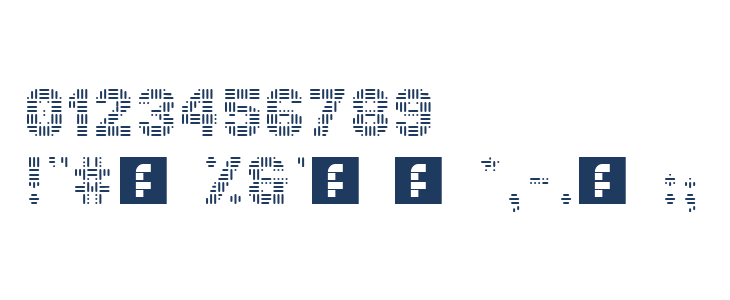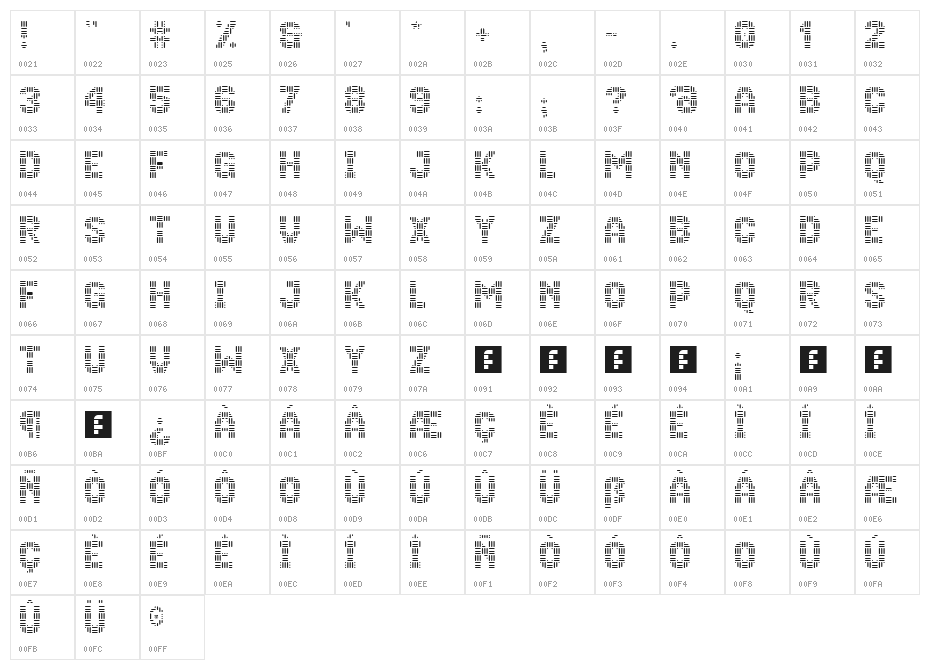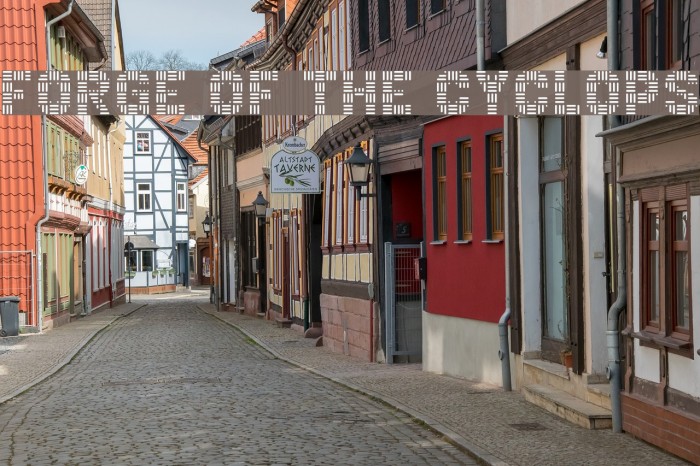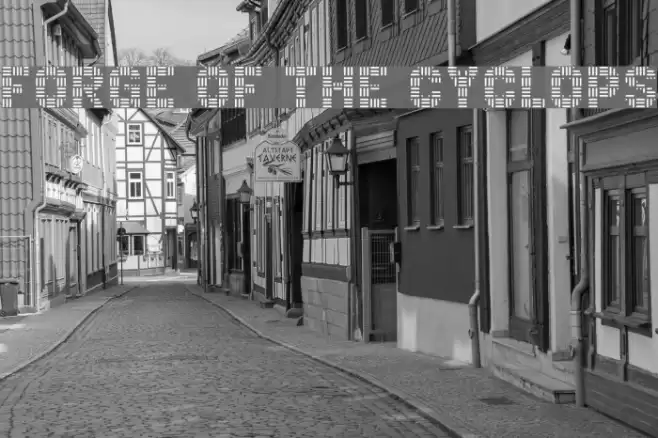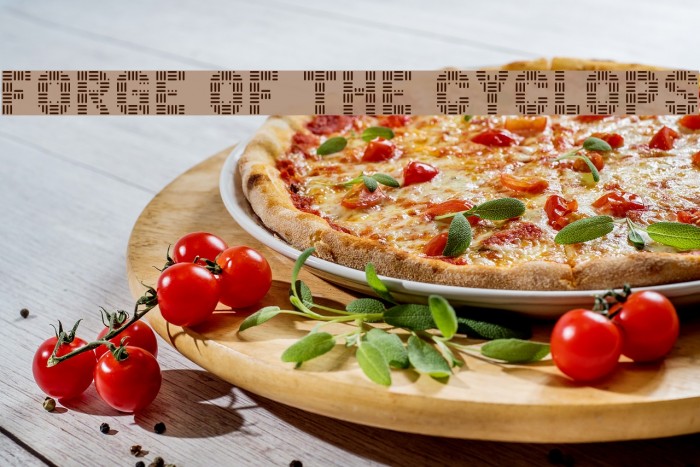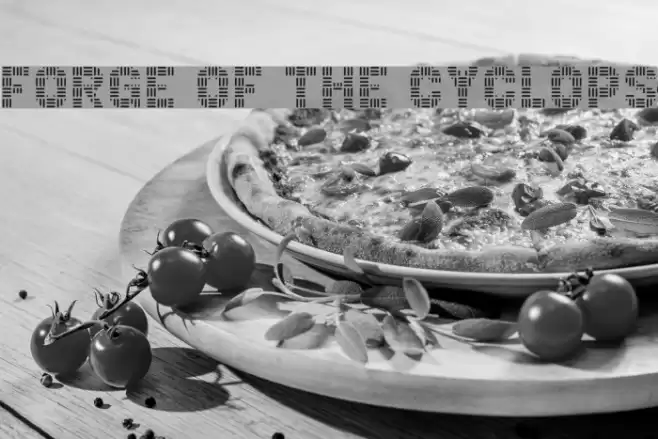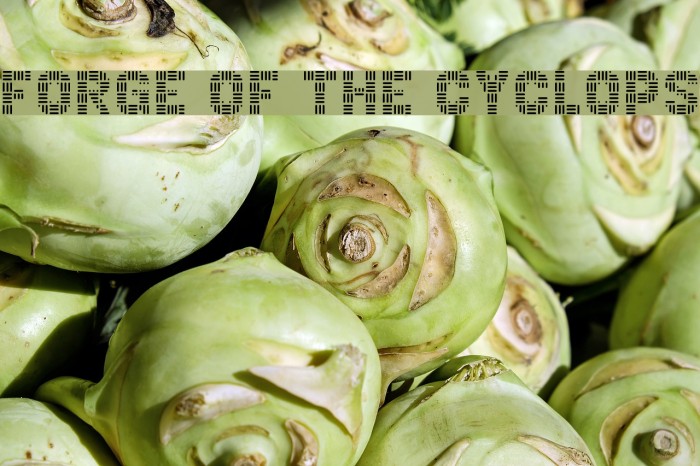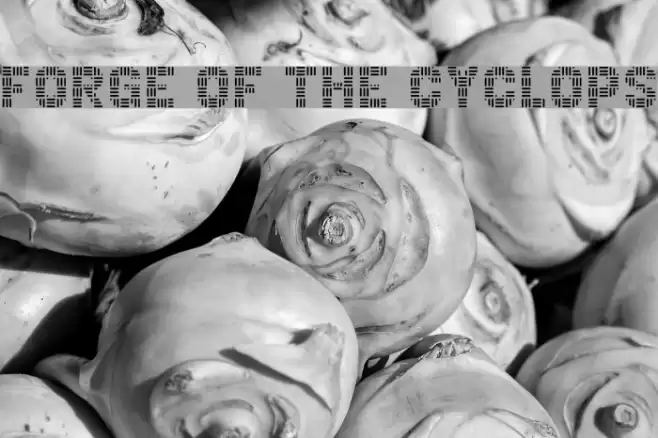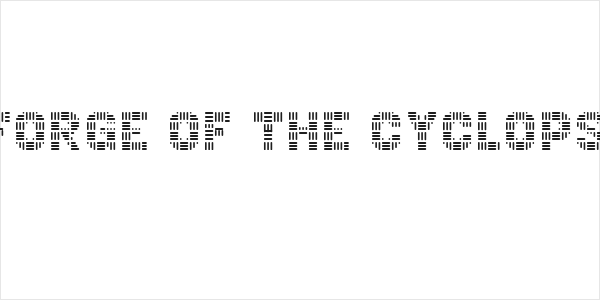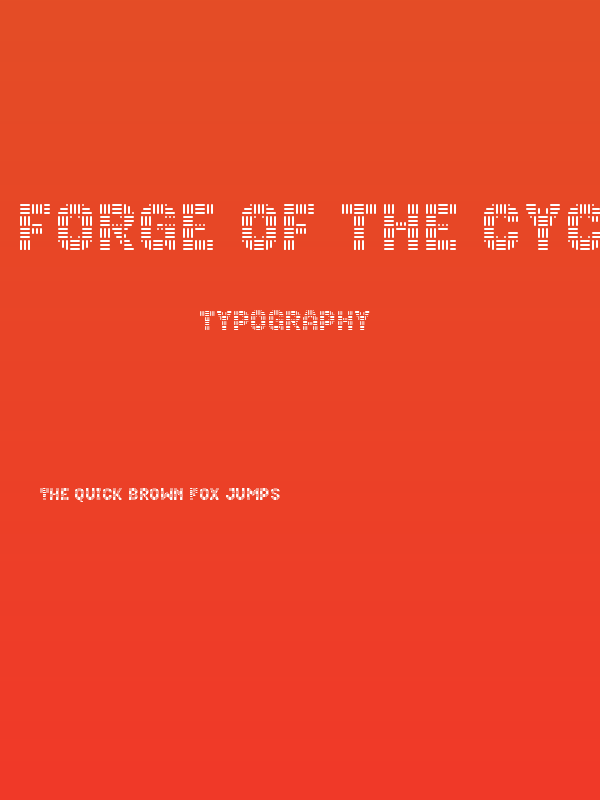
Forge Of The Cyclops Font
Forge Of The Cyclops Description
This font features a unique, industrial design with a distinct pattern of horizontal and vertical lines creating a grid-like appearance within each character. The uppercase and lowercase letters, as well as numbers and special characters, maintain a consistent style that emphasizes a mechanical and futuristic aesthetic. The bold, geometric shapes are filled with evenly spaced lines, giving the font a textured, layered look. This design is both eye-catching and highly stylized, making it suitable for projects that require a modern, tech-inspired theme. The font's structured form and high contrast between the lines and the background ensure readability while maintaining its decorative appeal.
| Overall Style | Futuristic, Industrial |
| Proposed Projects | Ideal for tech branding, sci-fi posters, video game titles, and industrial-themed designs. |